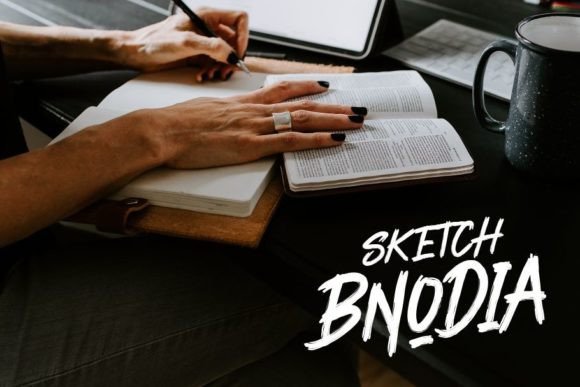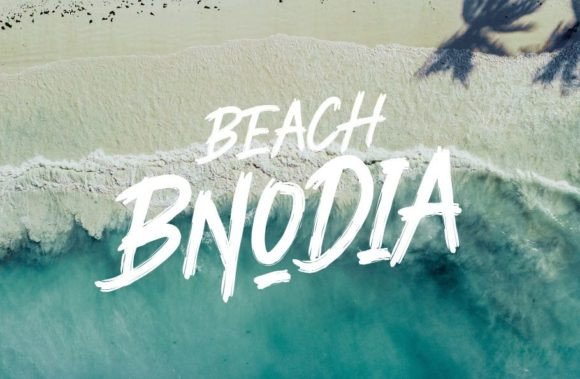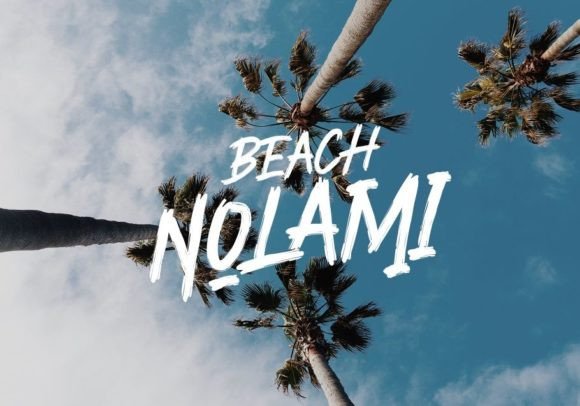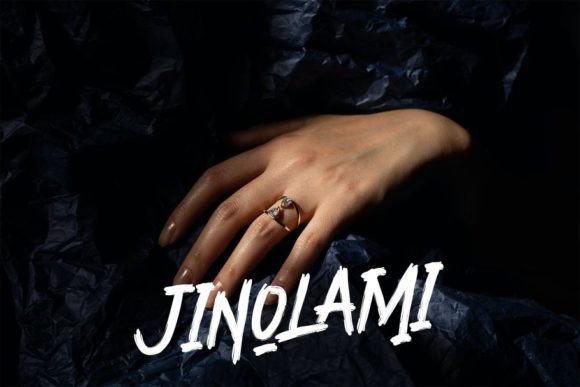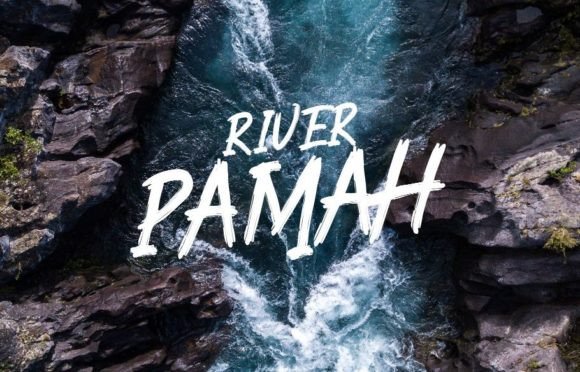
Hame Bnodia Font: Elevate Your Designs with a Modern, Classy Twist
In the world of typography, fonts play a crucial role in conveying the tone and personality of a design. For designers and crafters looking to add a touch of modernity and fun to their projects, the Hame Bnodia font is an excellent choice. This brush display font is designed to bring a unique blend of style, elegance, and playfulness to your designs.
What Makes Hame Bnodia Font Stand Out?
Hame Bnodia is a brush display font that boasts a modern, classy appearance, making it perfect for designers who want to add a dose of fun and sophistication to their projects. Its unique characters are carefully crafted to give your designs an urban, contemporary look that’s sure to grab attention.
Key Features of Hame Bnodia Font
- Modern and Classy: Hame Bnodia’s sleek design makes it an excellent choice for designers who want to create modern, stylish designs that exude elegance and sophistication.
- Unique Characters: The font’s distinctive characters are designed to add a touch of personality to your designs, setting them apart from more traditional fonts.
- Brush Display Font: Hame Bnodia’s brush font style gives it a dynamic, hand-crafted feel that’s perfect for creating eye-catching headlines, titles, and other display text.
- Perfect for Creative Projects: Whether you’re working on a branding project, creating social media graphics, or designing a website, Hame Bnodia is an excellent choice for adding a touch of modern style and fun.
How to Use Hame Bnodia Font in Your Designs
One of the best things about Hame Bnodia is its versatility. Here are a few ideas for using this font in your designs:
- Headlines and Titles: Use Hame Bnodia to create eye-catching headlines and titles that grab attention and add a touch of personality to your designs.
- Branding and Logo Design: The font’s unique characters and modern style make it an excellent choice for creating brand identities and logos that stand out.
- Social Media Graphics: Add a touch of fun and sophistication to your social media graphics with Hame Bnodia’s modern, classy design.
- Web Design: Use Hame Bnodia to create stylish, modern website headers, titles, and other display text that adds a touch of personality to your site.
Tips for Getting the Most Out of Hame Bnodia Font
To get the most out of Hame Bnodia, here are a few tips to keep in mind:
- Experiment with Colors: Hame Bnodia looks great in a variety of colors, so don’t be afraid to experiment and find the perfect hue to match your brand or design.
- Play with Sizes: The font’s unique characters are designed to be versatile, so try using it in different sizes to add visual interest to your designs.
- Mix and Match: Combine Hame Bnodia with other fonts to create a unique, visually appealing typography style that adds depth and personality to your designs.
In conclusion, Hame Bnodia is a modern, classy brush display font that’s perfect for designers and crafters looking to add a touch of fun and sophistication to their projects. Its unique characters, sleek design, and versatility make it an excellent choice for a wide range of design applications. Whether you’re working on a branding project, creating social media graphics, or designing a website, Hame Bnodia is sure to elevate your designs and help you stand out from the crowd.